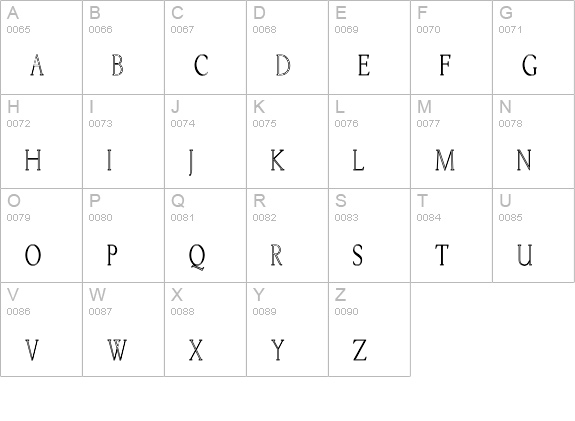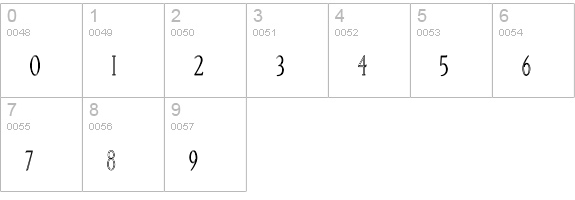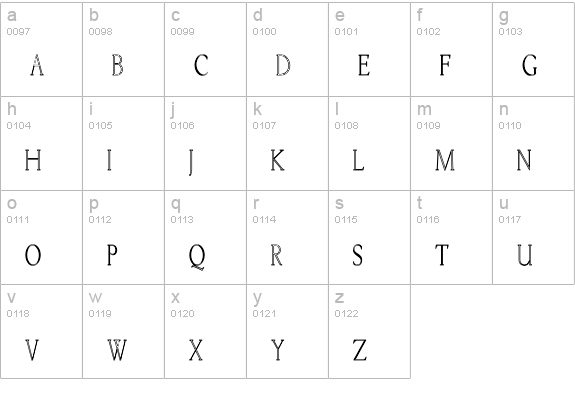
KellnearHC font is a stunning typeface that perfectly combines elegance and modernity. Its sleek and sophisticated design makes it a versatile choice for a wide range of projects, from branding and advertising to editorial designs and web graphics. The uniqueness of KellnearHC lies in its clean lines and carefully crafted letterforms. Each character is meticulously designed to ensure maximum legibility and visual impact. The sharp and consistent strokes give this font a contemporary feel, while the subtle curves add a touch of elegance. One of the most remarkable features of KellnearHC is that it is available for free! Yes, you read it right. This amazing font can be freely downloaded at FontsMarket.com. This means that you can enjoy the beauty and versatility of KellnearHC without having to spend a dime. Whether you are a professional designer or a casual user, KellnearHC is a font that will surely impress. Its timeless appeal and effortless charm make it a perfect choice for any project that requires a touch of sophistication. So why wait? Head over to FontsMarket.com now and download KellnearHC for free. It's time to elevate your designs with this remarkable font.